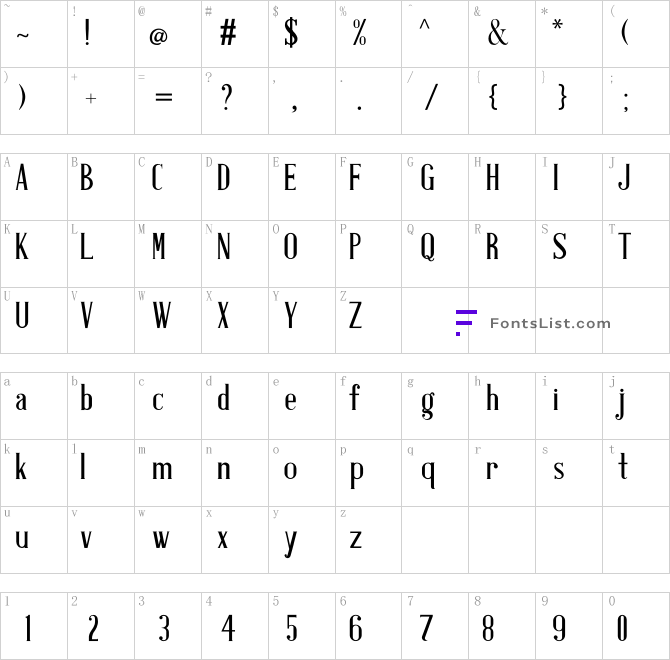
- Font Name:Antique Book Cover Regular
Antique-Book-Cover.otf is a very beautiful artistic font, Antique-Book-Cover.otf is widely used in the design and printing of various books and pictures,Antique-Book-Cover.otf has a strong visual impact,Antique-Book-Cover.otf is a commonly used font in newspapers, magazines and books, and is used in posters, e-commerce Poster design, store design, logo design, font design and other fields.Antique-Book-Cover.